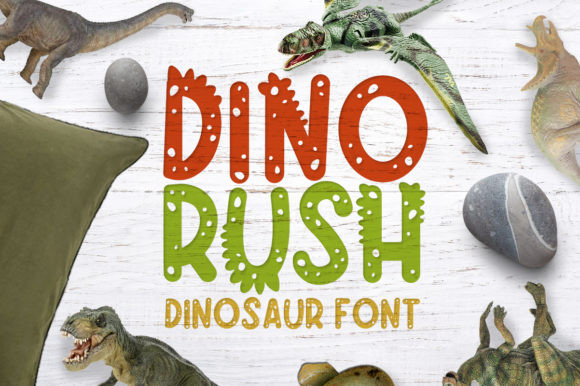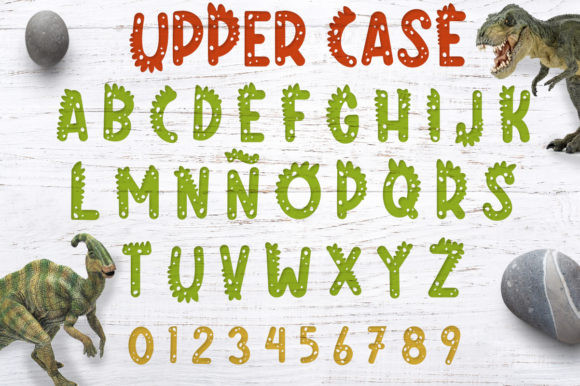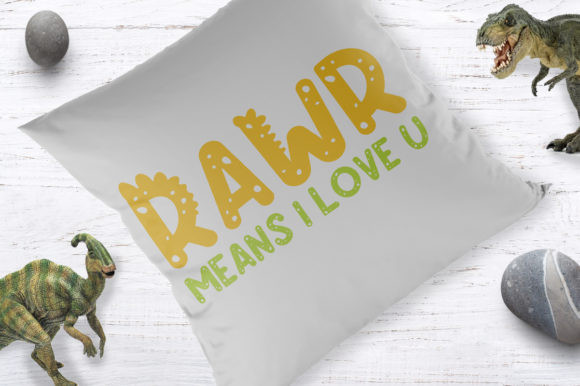
Dino Rush Font
Dino Rush is a fun and unique display font. Get creative with its childlike playfulness, and use it to brighten up any kids and school project!